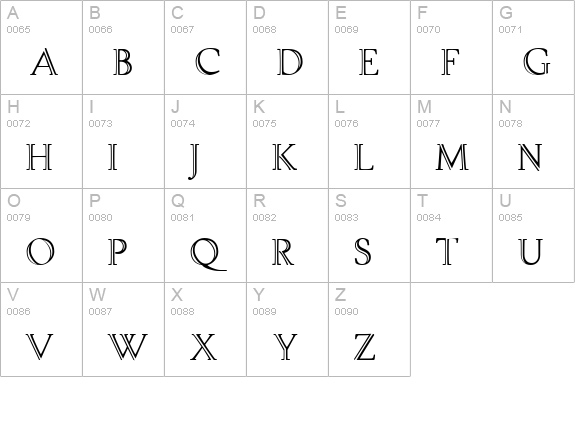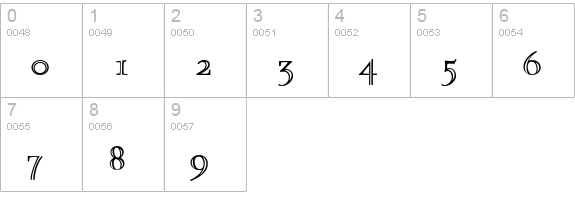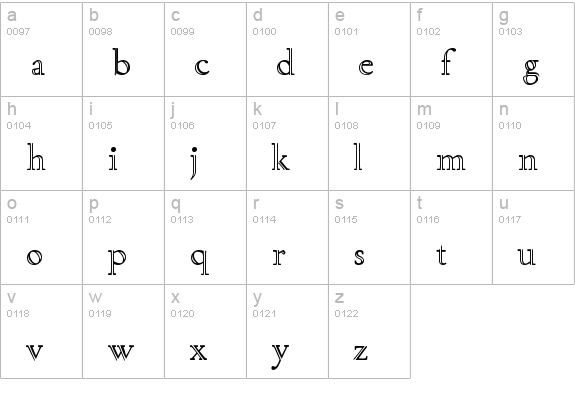
TaskOpen font is a versatile and stylish typeface that is perfect for a wide range of design projects. With its clean lines and modern aesthetic, TaskOpen is sure to make your text stand out. This font is available for free download at FontsMarket.com, allowing you to easily add a touch of sophistication to your designs without breaking the bank. Whether you're working on a logo, poster, website, or any other project, TaskOpen is a great choice for adding a touch of elegance and professionalism. Download TaskOpen font today and take your designs to the next level!